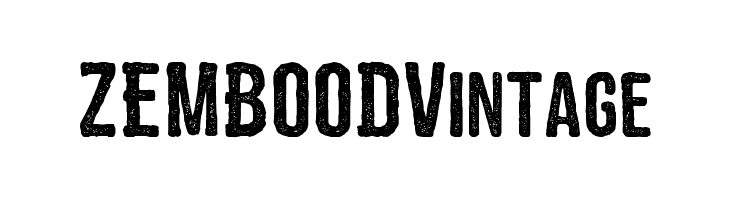
A distressed, vintage-style font with a textured, eroded appearance.
An ornate, decorative font with intricate swirls and embellishments.
An abstract, bold font with organic, camouflage-like shapes.
A bold, geometric font with a modern and authoritative style.
A whimsical decorative font with bird and cage doodles.
A bold, modern slab serif font with a vintage touch, ideal for impactful headlines.
A bold, geometric Art Deco font with sharp angles and clean lines.
A bold, decorative font with a playful, vintage circus-inspired design.
A bold, Art Deco-inspired font with geometric shapes and sharp angles.
A bold Art Deco style font with geometric shapes and strong vertical lines.
An ornate, Victorian-style font with decorative flourishes and elegant details.
A bold, retro-inspired font with vertical stripes and geometric shapes.
A bold, decorative font with a retro, marquee-inspired design.
A bold, geometric font with Art Deco influences and high contrast.
A decorative, retro-inspired font with intricate detailing and bold characters.
A bold, Art Deco-inspired font with geometric shapes and intricate patterns.
A playful, sausage-like font with rounded, tubular shapes.
A decorative font featuring a collage of college logos and mascots for each letter.
A decorative set of illustrated cartoon character glyphs.
A bold, vintage-style font with rugged outlines and a distressed look.
A bold, distressed font with a vintage, rugged appearance.
A bold, distressed font with a rugged, vintage appearance.
A bold, decorative font with intricate paisley patterns, ideal for standout headlines.
A bold, stencil-style font with geometric cutouts and an industrial feel.
A chiseled, stone-like font with a bold, decorative style.